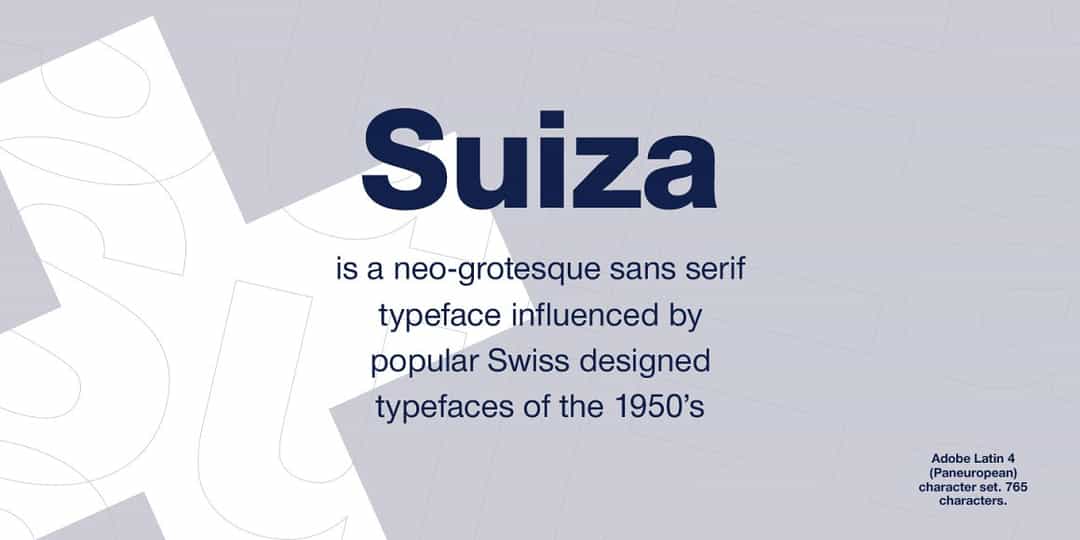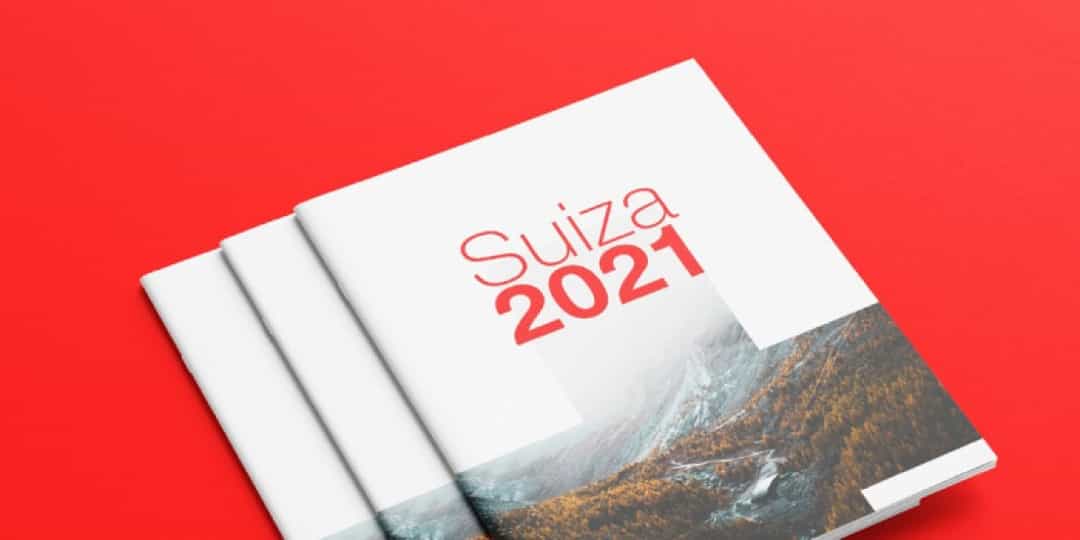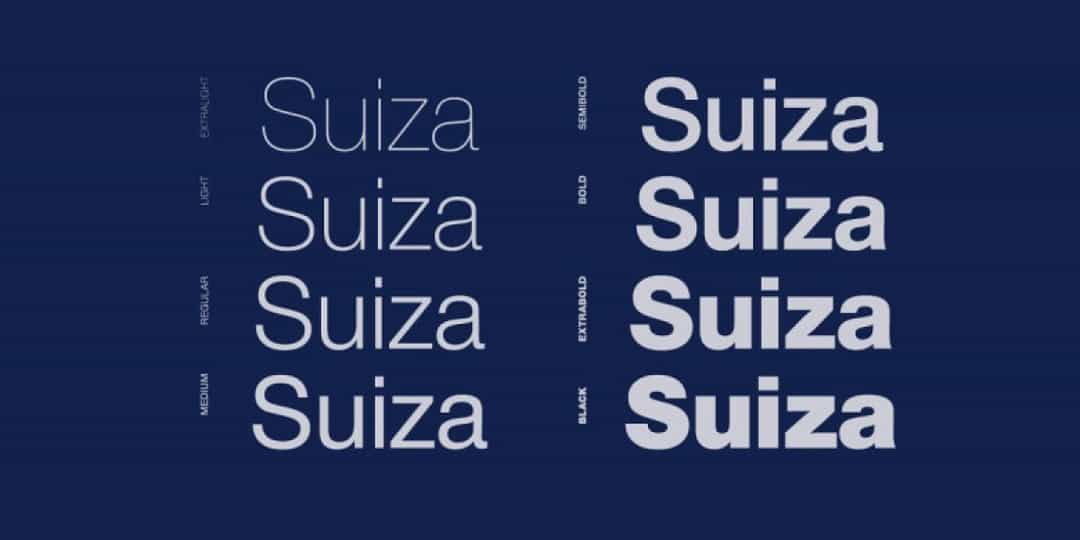
Suiza is an all-grotesk sans serif font family designed for versatility and elegance, boasting multiple language support. Additionally, this font comes equipped with cutting-edge professional features to create an appealing brand identity for commercial projects or businesses alike.